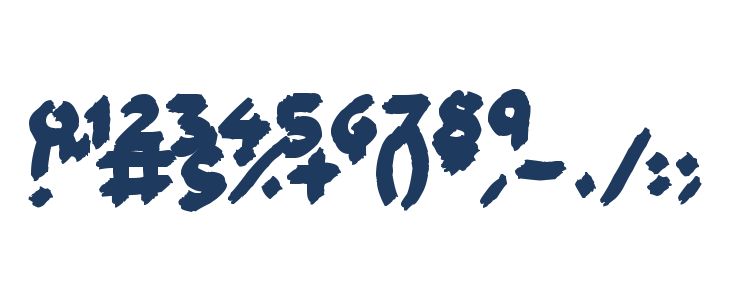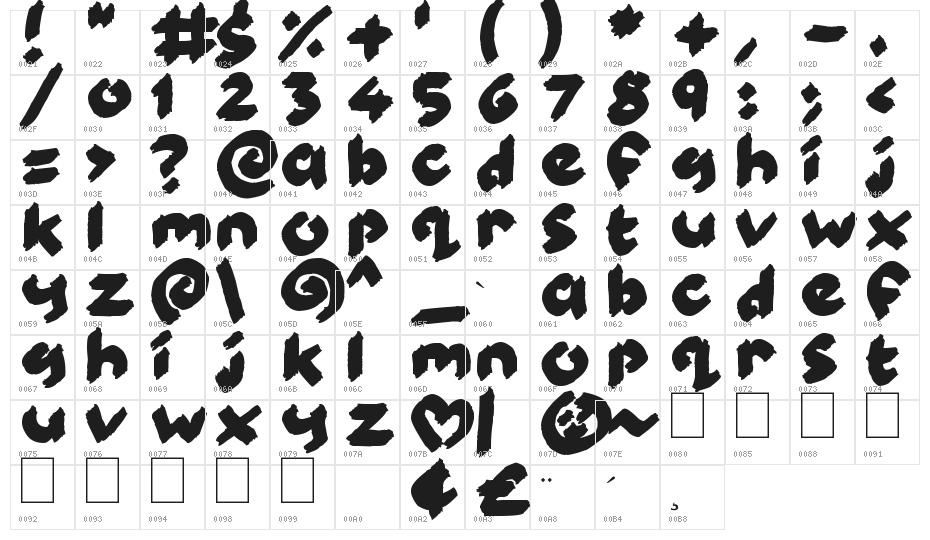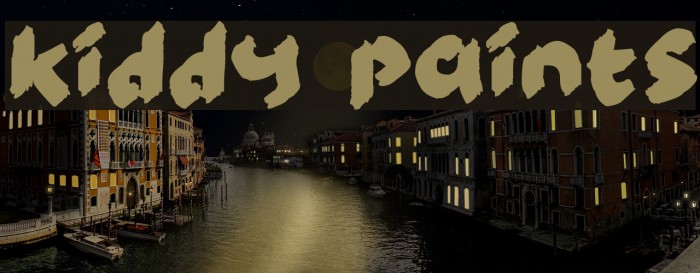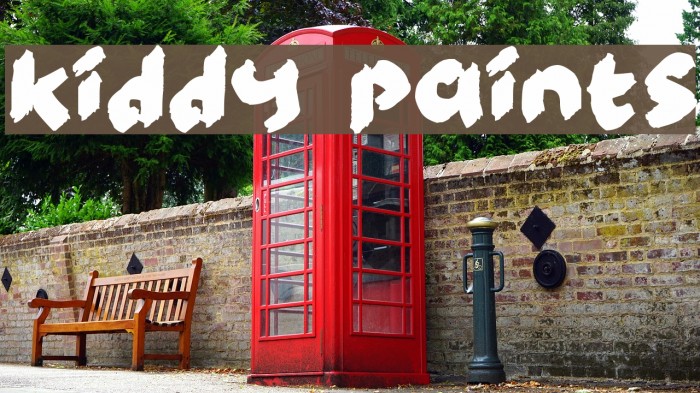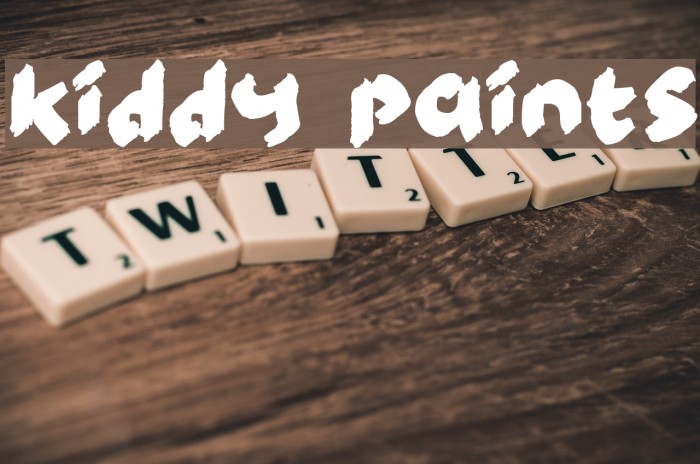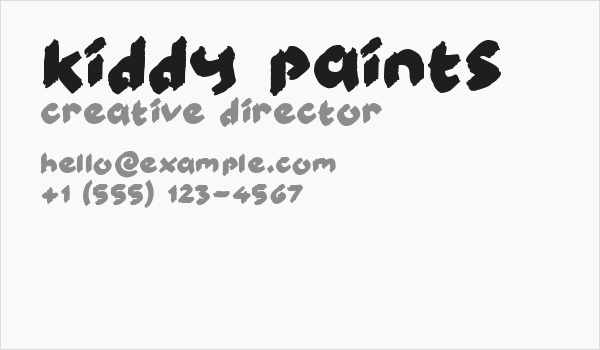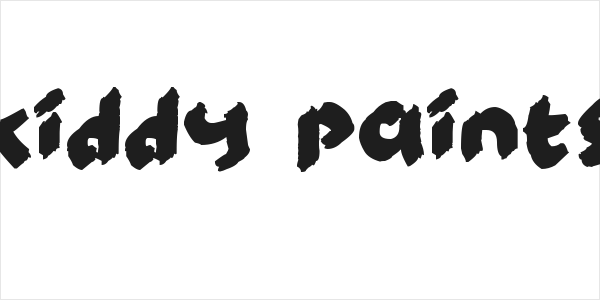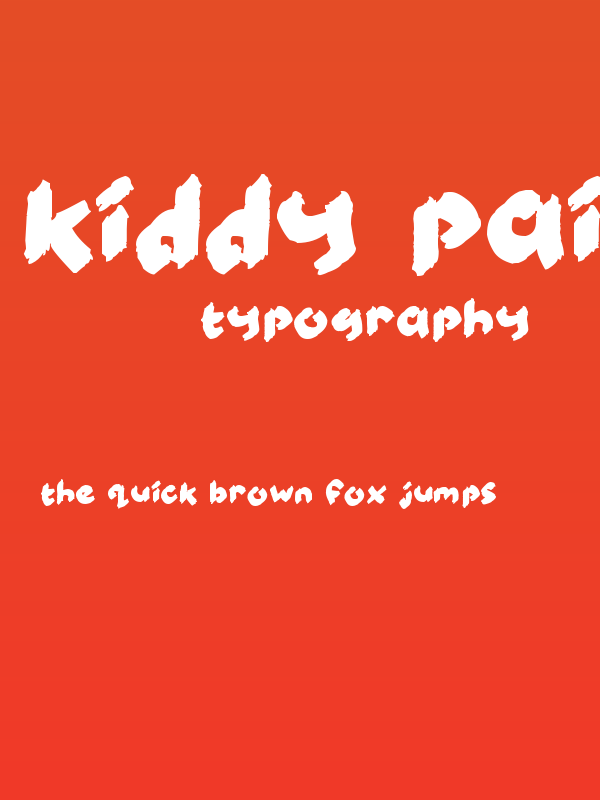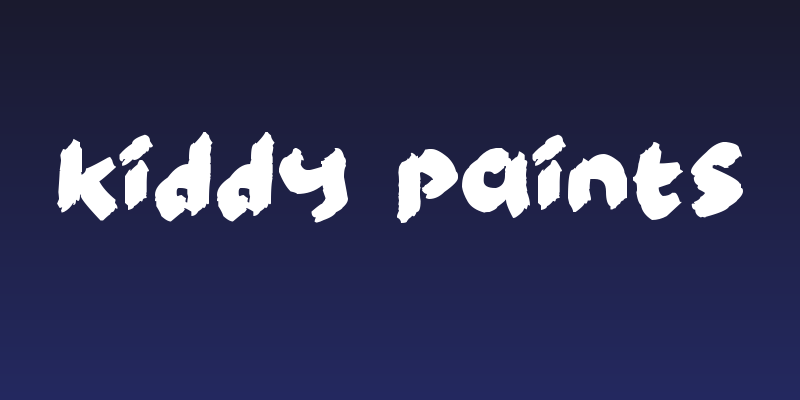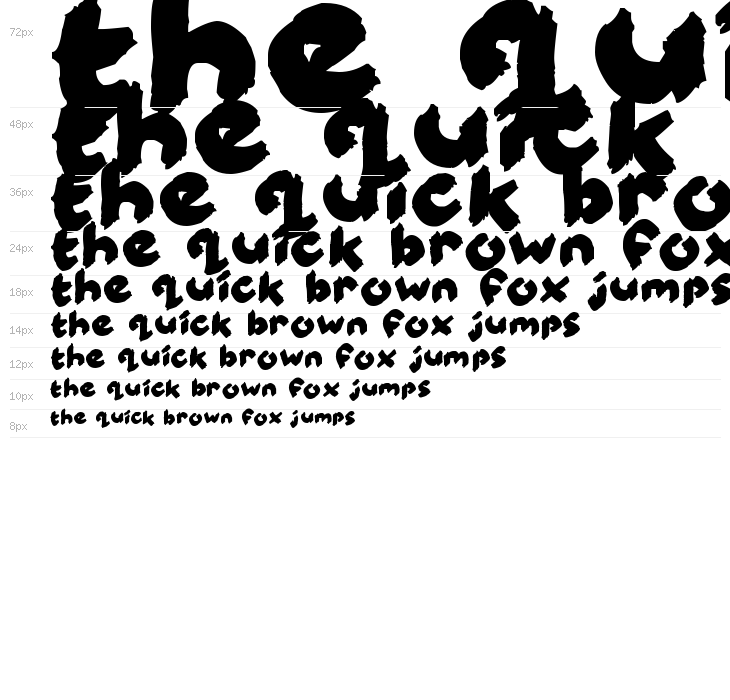
Kiddy Paints Font
Kiddy Paints Description
This playful and energetic font features a bold, brush-like style that exudes a sense of creativity and spontaneity. The characters are crafted with a thick, uneven stroke that mimics the appearance of hand-painted letters, giving it a lively and informal vibe. The font's irregular edges and varying stroke widths contribute to its dynamic and artistic feel, making it ideal for projects that require a touch of whimsy and fun. Its unique design captures attention and adds a personal, handcrafted touch to any text.
| Overall Style | Playful, Artistic |
| Proposed Projects | Ideal for children's book covers, playful branding, creative posters, and art-related projects. |